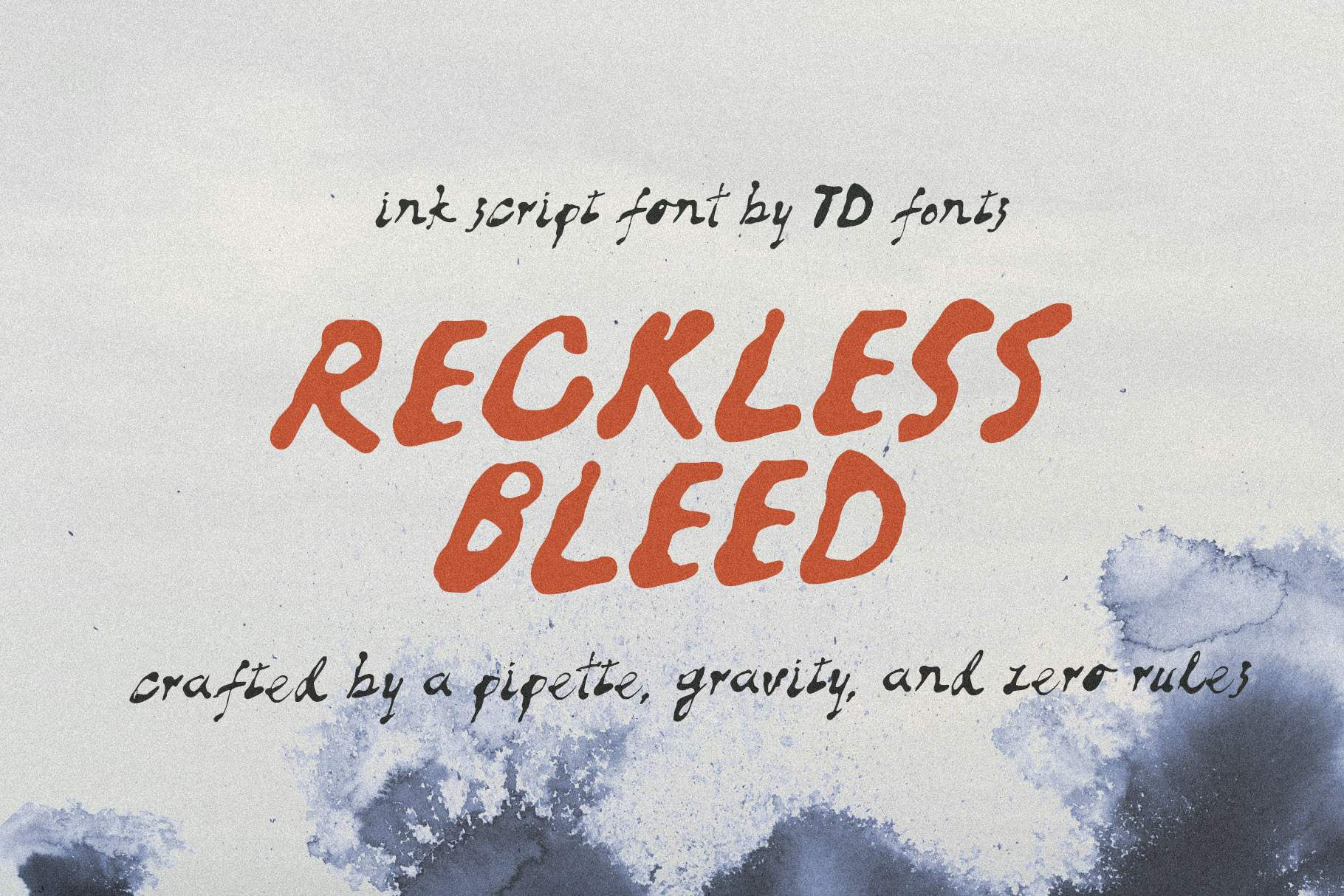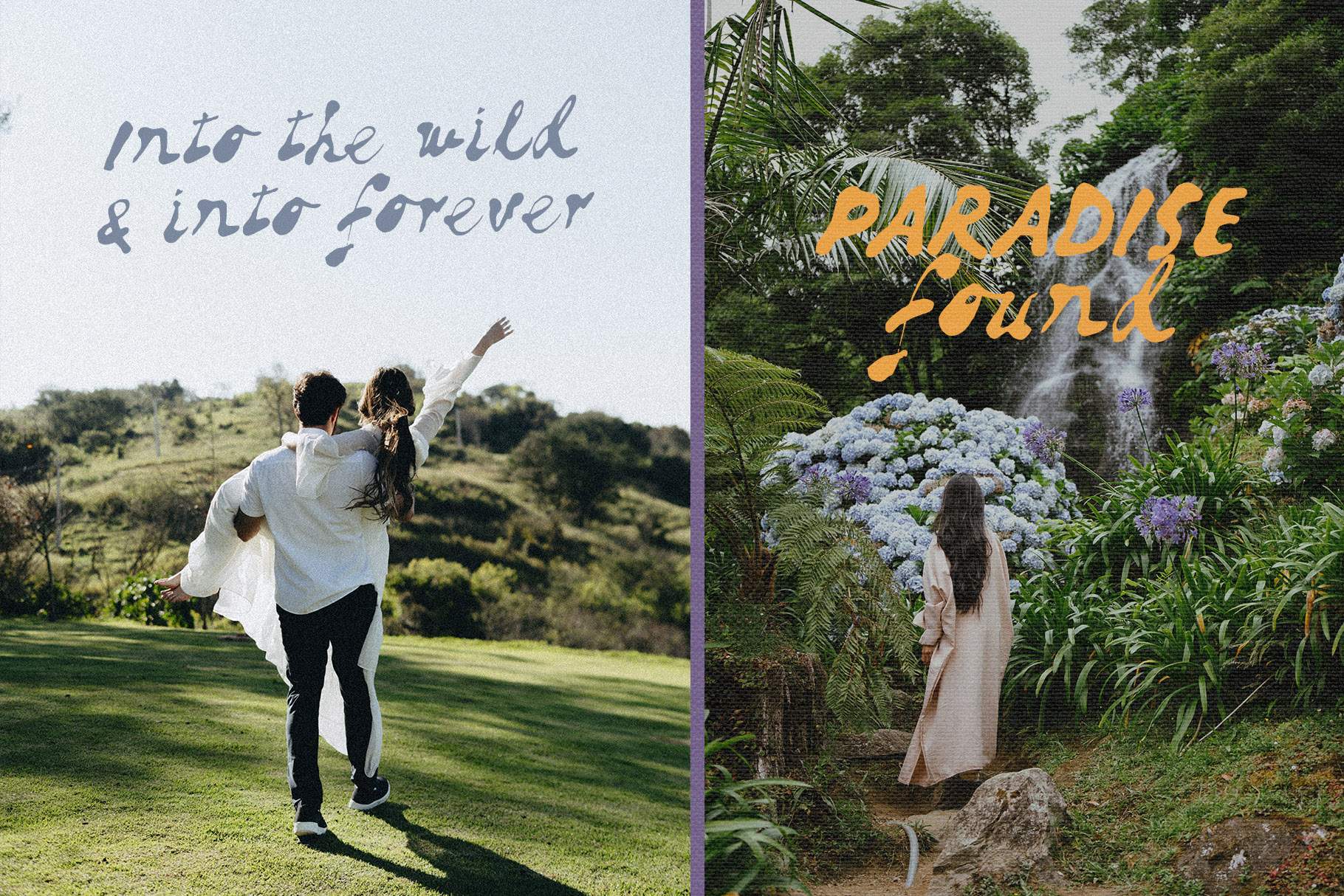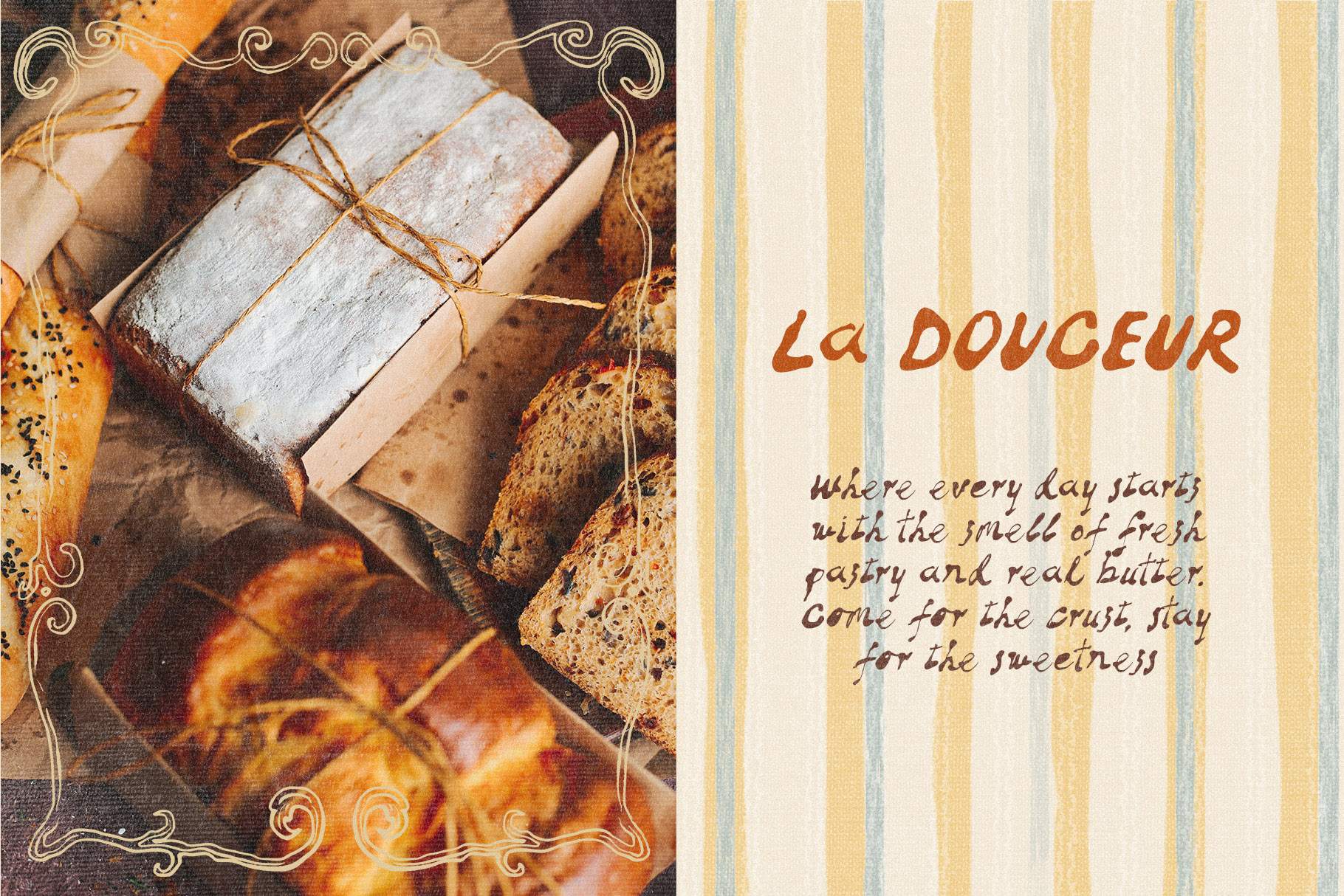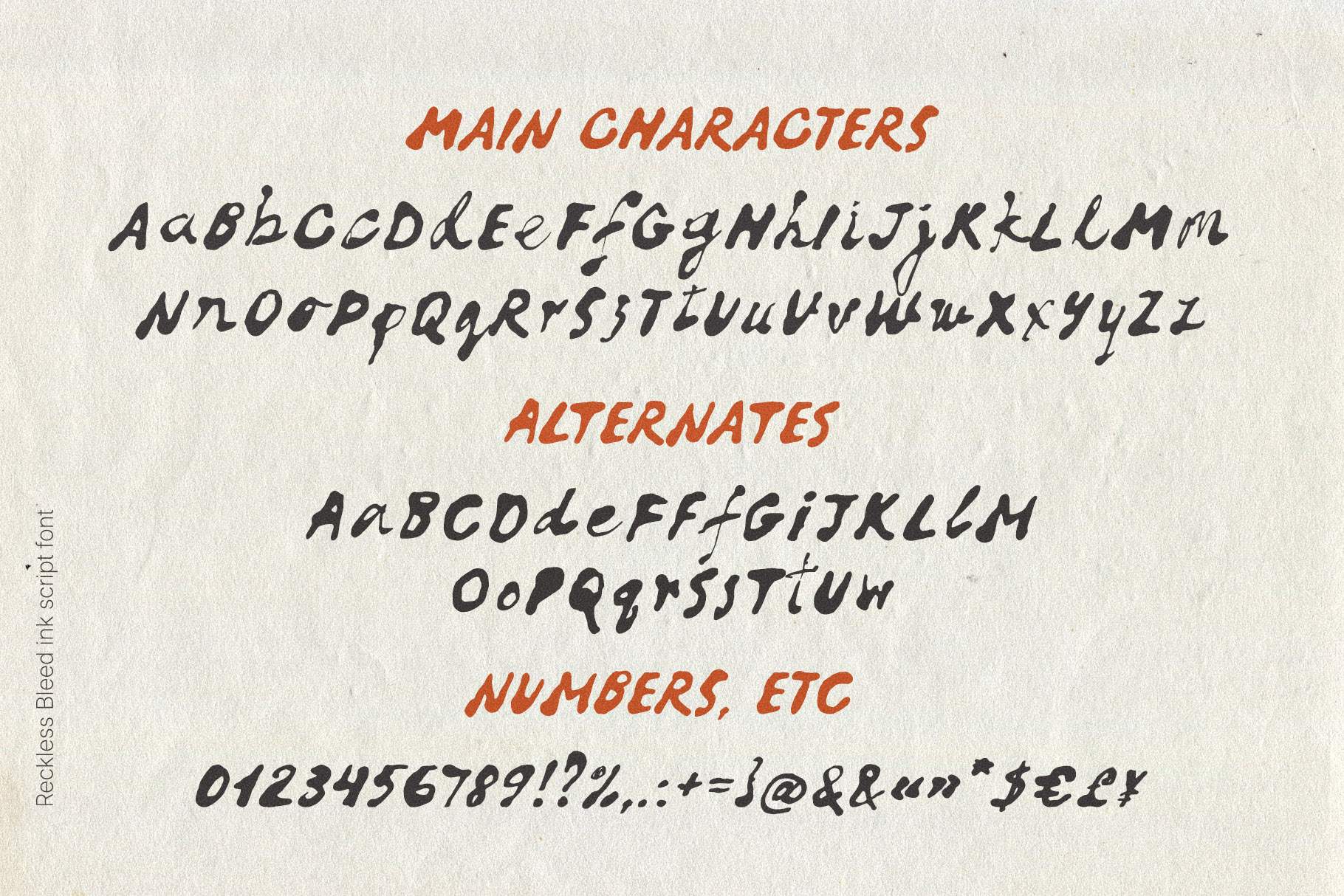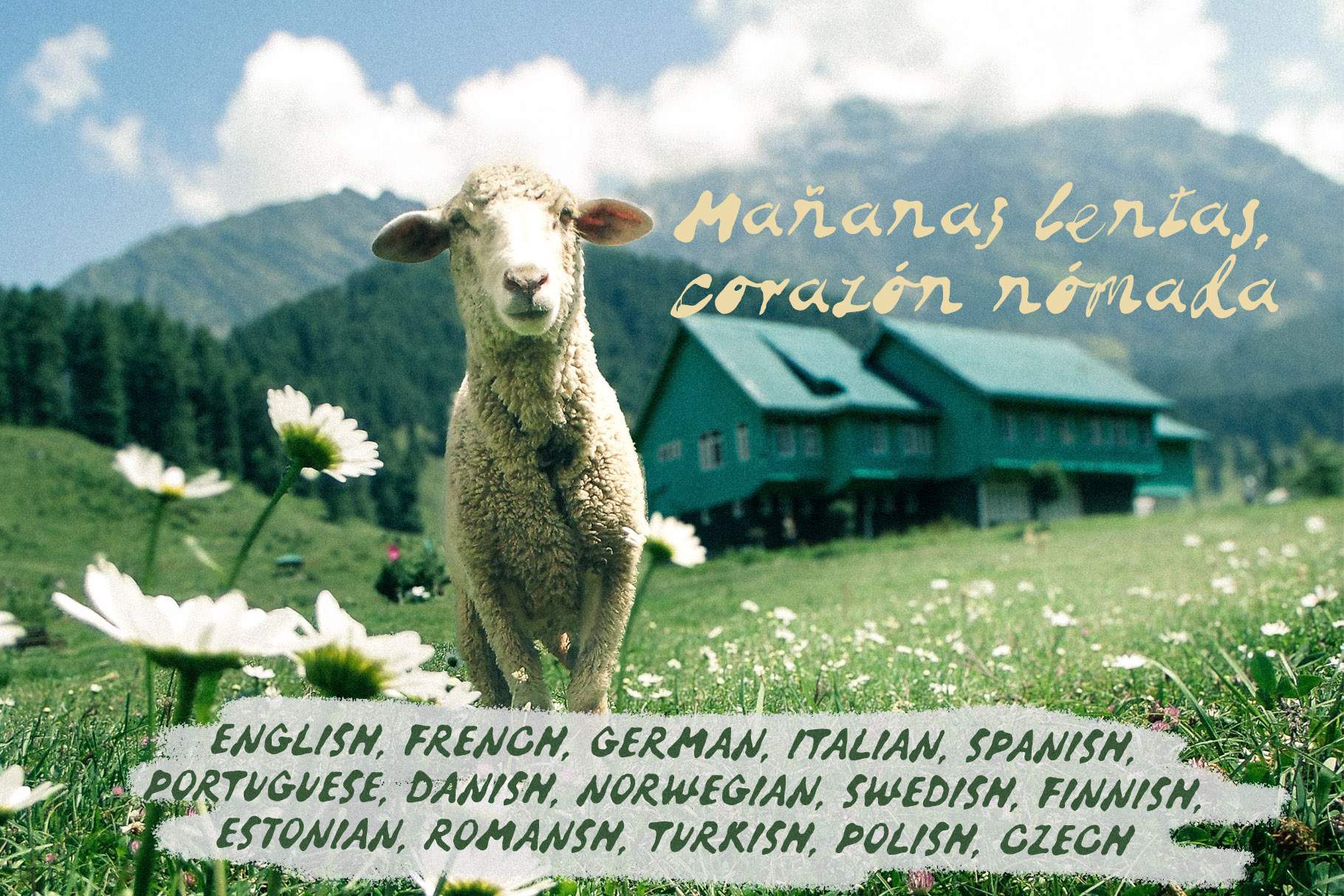
Reckless Bleed — handwritten script font with liquid ink bleed texture
Reckless Bleed is a raw, textured handwritten script font made with a pipette and free-flowing liquid ink. Every letter carries real ink bleed texture — no digital effects, no two letters alike.
A handwritten script font with real ink bleed texture
Reckless Bleed is an experimental handwritten script font created without a brush or a pen. It was made with a pipette and liquid ink, left free to bleed across the paper. Every letter carries the physical trace of that process — natural ink bleeds, heavy pooling drops, and soft, uncontrolled edges that no digital brush effect can fake.
Letterform details
As a script font, Reckless Bleed keeps the fluid, connected movement of handwriting — but pushes it further into raw, textured territory. It features a strongly irregular baseline, dramatic variable stroke weight, heavy ball terminals where the ink pooled and settled, and exaggerated ink traps at the joins. These aren’t decorative effects — they’re the literal result of liquid ink meeting paper, which is why no two letters ever look quite the same.
Where this handwritten script font works best
This tactile, textured typeface brings raw, handmade character to any project that needs honesty over polish:
Branding and packaging — a hand-inked script font like this adds instant warmth and craft to labels for natural cosmetics, specialty coffee, and candles, or to logos that want a natural, unpolished boldness.
Wedding and event stationery — as an alternative to classic elegant script fonts, Reckless Bleed brings texture and personality to modern invitations, save-the-dates, and place cards.
Apparel and merch — the heavy ink bleeds and irregular baseline make this handwritten font stand out on t-shirts, tote bags, and any lettering that needs to grab attention.
Editorial and social media — headlines, quotes, moodboards, and travel journals all benefit from this textured script font’s raw, human quality.
Entertainment branding — album covers, film and series titles, and podcast branding often call for a script font with real character, not a clean digital script.
- A large set of alternate characters, so repeated letters never look identical
- Full multilingual support, including all essential diacritics for French, Swedish, Spanish, Portuguese, Polish, and many more languages
Is Reckless Bleed a script font or a handwritten font?
Both. It has the fluid, connected movement of a script font, but it was genuinely handwritten — drawn with a pipette and liquid ink on real paper, then digitized. The ink bleed texture is physical, not simulated.
What makes this different from a regular script font?
Most script fonts are drawn digitally to imitate handwriting. Reckless Bleed is the opposite: it starts from real liquid ink bleeding on paper, so the irregular baseline, variable stroke weight, and ink pooling are authentic artifacts of the process, not a digital filter.
Does Reckless Bleed include alternate letters?
Yes. A large set of alternates is included so that repeated letters in a word never look identical, keeping the handwritten feel authentic.
Does Reckless Bleed support languages other than English?
Yes. It includes full multilingual support with diacritics for French, Swedish, Spanish, Portuguese, Polish, and many other languages.
What kind of projects is Reckless Bleed best suited for?
Branding, packaging, wedding stationery, apparel lettering, editorial headlines, and any design that calls for a raw, tactile, handwritten script font with real character.